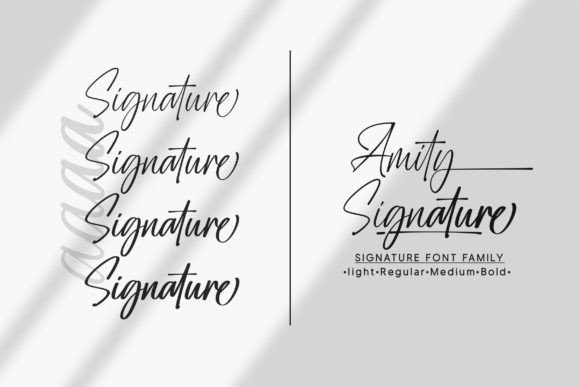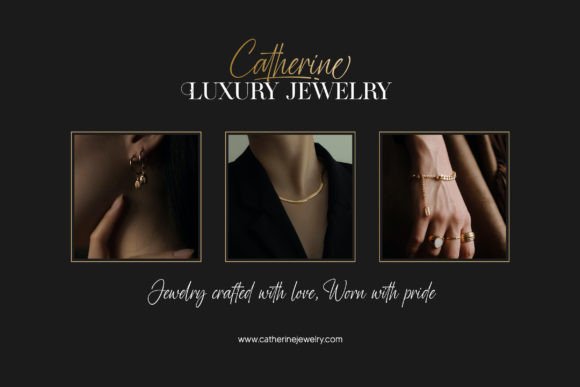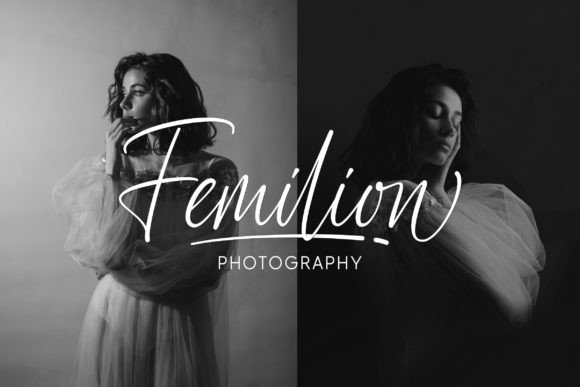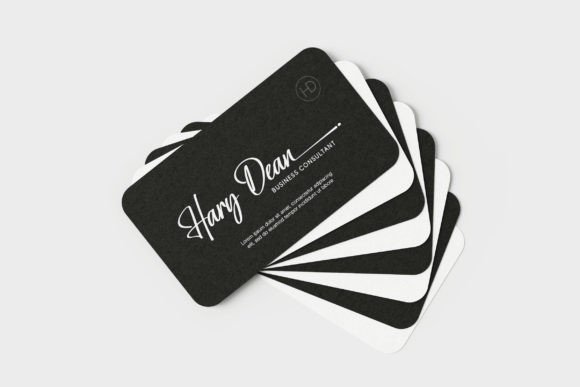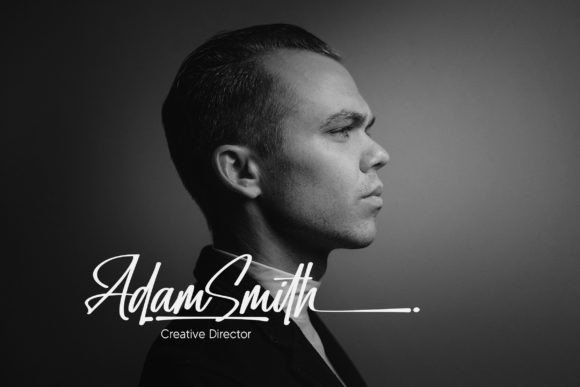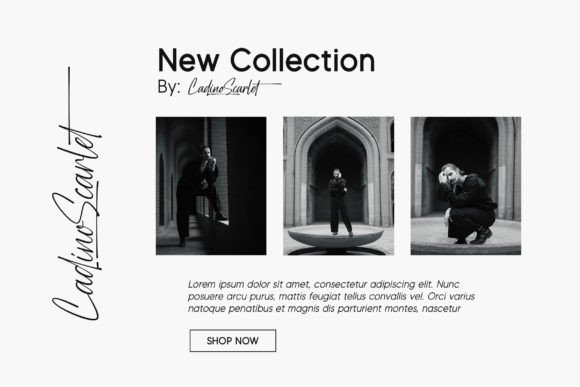
The Amity Signature Font: A Designer’s New Best Friend
I’ll never forget the time I was working on a logo design project for a high-end boutique client. I had spent hours brainstorming ideas, sketching out concepts, and refining my designs. But as I sat in front of my computer, staring at the blank canvas, I realized I was stuck – I just couldn’t find the right font to bring my vision to life. That’s when I discovered the Amity Signature font, and let me tell you, it was a game-changer! ✨
What is Amity Signature Font?
Amity Signature is a stylish and versatile font family that features four distinct weights: Light, Regular, Medium, and Bold. This collection offers an elegant impression and flexibility for all design needs, such as logos, branding, signatures, posters, labels, product packaging, invitation designs, and more. The best part? It’s PUA encoded, which means you can access all of the amazing glyphs and ligatures with ease! ✅
- ✨ Elegant and sophisticated design that’s perfect for high-end projects
- ✅ Four distinct weights to provide flexibility and versatility
- 🎉 PUA encoded for easy access to glyphs and ligatures
- 💻 Works seamlessly across various design platforms, including Canva, Adobe Photoshop, and Microsoft Word
While Amity Signature is an amazing font, there are a few things to keep in mind. 🤔 For example, some users may find that the font can be a bit finicky when it comes to kerning and spacing. Additionally, ⚠️ the font may not be suitable for body text or long-form content, as it’s designed primarily for display purposes.
The Designer Inspiration Behind Amity Signature
According to its creators, Amity Signature was inspired by the classic typography of the past, combined with modern design sensibilities. The goal was to create a font that was both elegant and versatile, suitable for a wide range of design applications. While the actual design process may be shrouded in mystery, it’s clear that the designers behind Amity Signature were on a mission to create something truly special. 💫
Q: What is PUA encoding, and how does it work?
PUA (Private Use Area) encoding is a way of encoding fonts that allows for easy access to glyphs and ligatures. In the case of Amity Signature, PUA encoding means you can access all of the amazing glyphs and ligatures with ease, using programs like Adobe Photoshop and Illustrator.
Q: Is Amity Signature suitable for body text or long-form content?
While Amity Signature is an amazing font, it’s primarily designed for display purposes. As such, it may not be the best choice for body text or long-form content. For those applications, you may want to consider a font that’s specifically designed for readability.